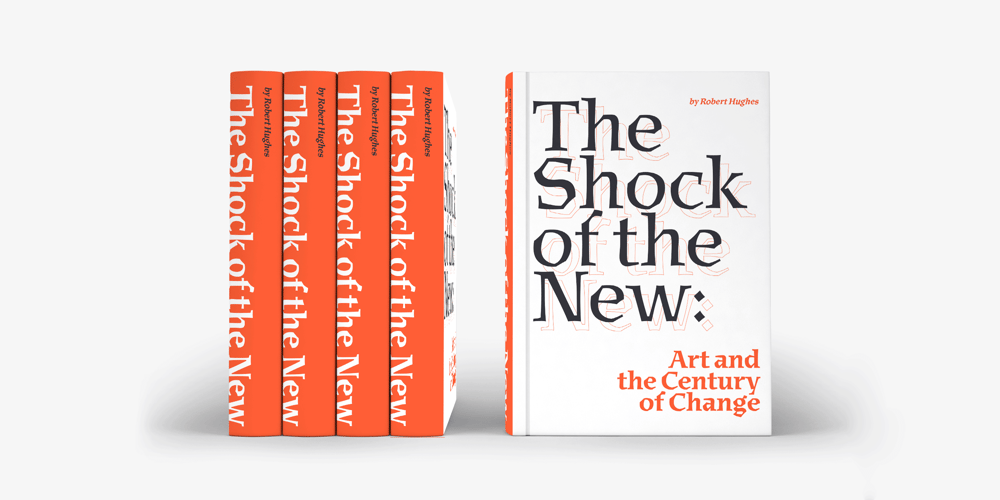
Mexica
Mexica font
Mexica Font Family was designed by Gabriel Martínez Meave and published by Sudtipos. Mexica contains 9 styles and family package options. Mexica is a typographic tribute to Nahuatl, the tongue of the Aztecs, but also the lingua franca of ancient Mexico. ‘Mexica’ is not only the feminized, latinized form of the word ‘Mexico’, but also the name of the inhabitants of this place: the Me-xic-cah. Nahuatl, when composed in the Latin alphabet, abounds in diagonal letter shapes: XYZ are ubiquitous in its classic orthography, just as KW are in its modern one. This visual feature is further enhanced by the absence of some rounded letters such as BDG that depict inexistent sounds in this millenarian tongue. Besides, Nahuatl is language with a tendency to form very long words that give the text quite a distinct appearance, unlike English, for instance, with its abundance of short words. Mexica was designed to look well in all these contexts, and to perform as well as a contemporary, daring, stylish serif type family, with several weights for text and display composition. Further, its terminals and general structure —devoid almost completely of straight lines—are inspired by the angled architecture and ornamentation of the ancient city of Mexico- Tenochtitlan. Mexica received an Award of Excellence at the Type Directors Club of New York annual competition.